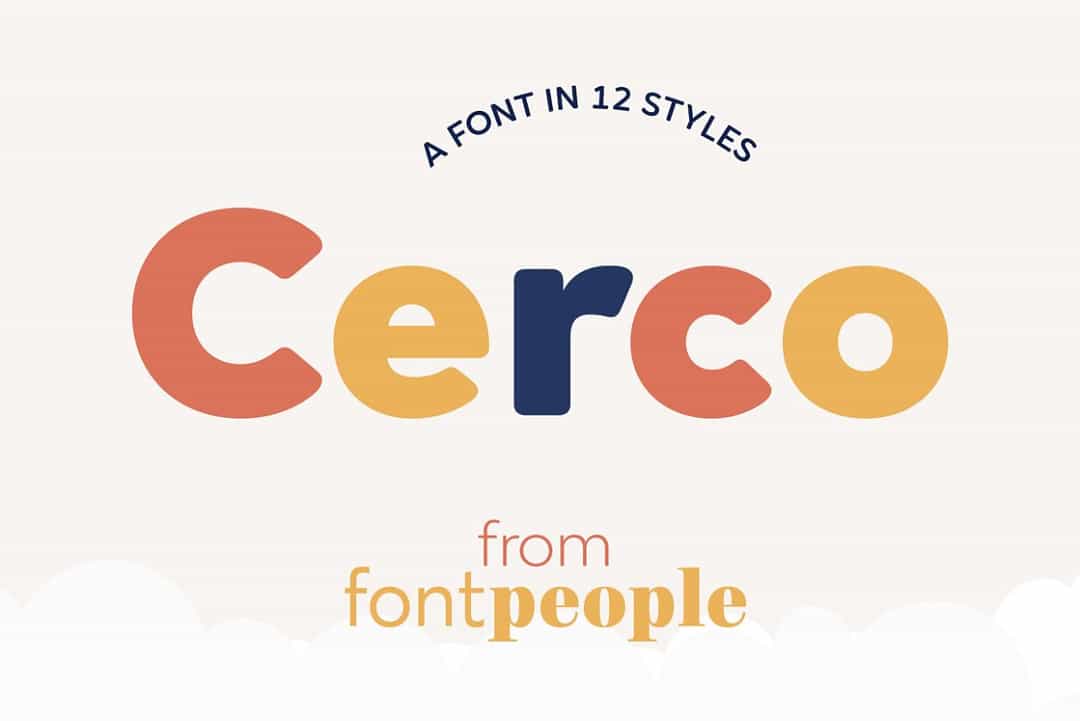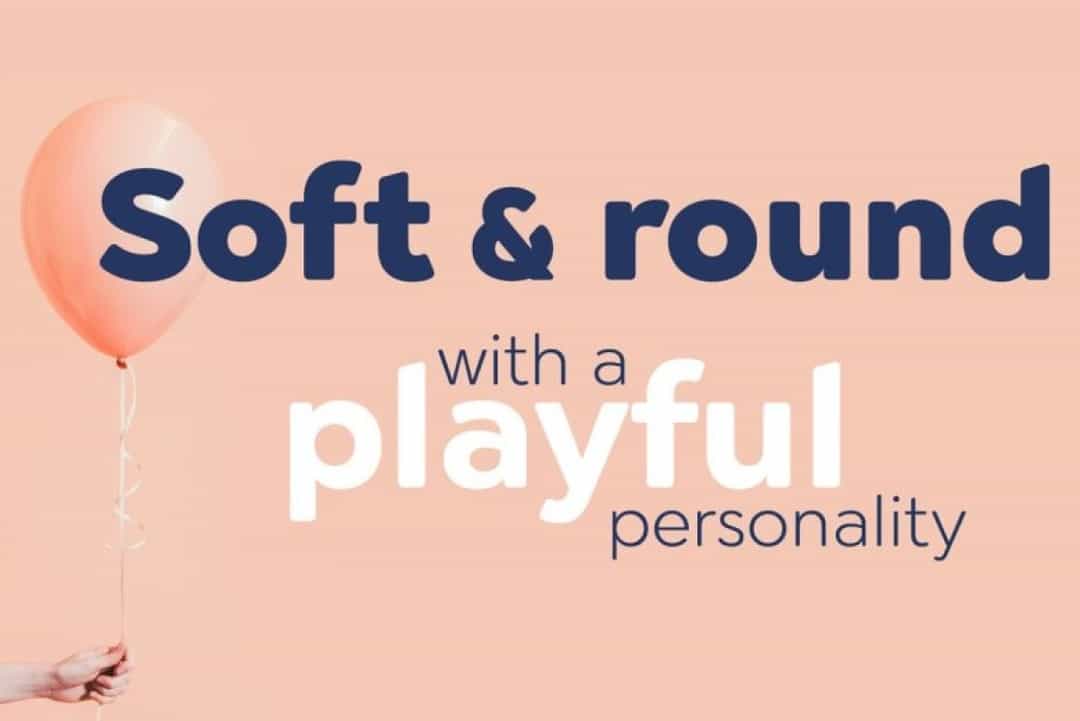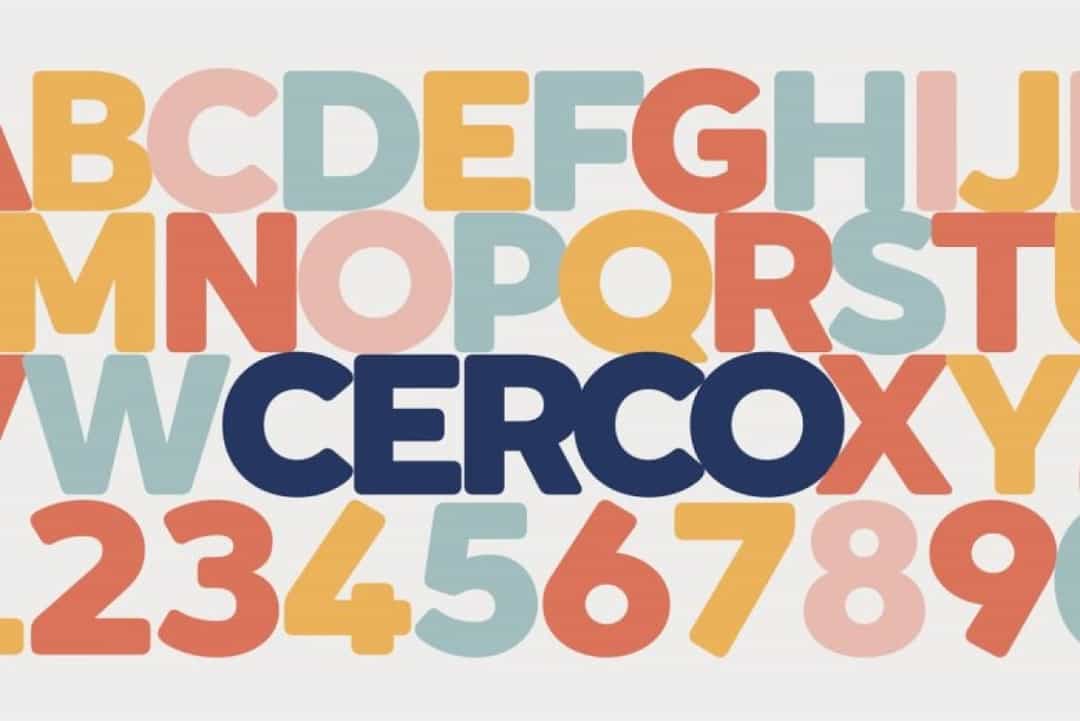
Cerco Sans Serif Font is an accessible, welcoming family of fonts with a distinct warm look and feel. It works beautifully when used for body text while its heavier weights look stunning when displayed at large sizes.